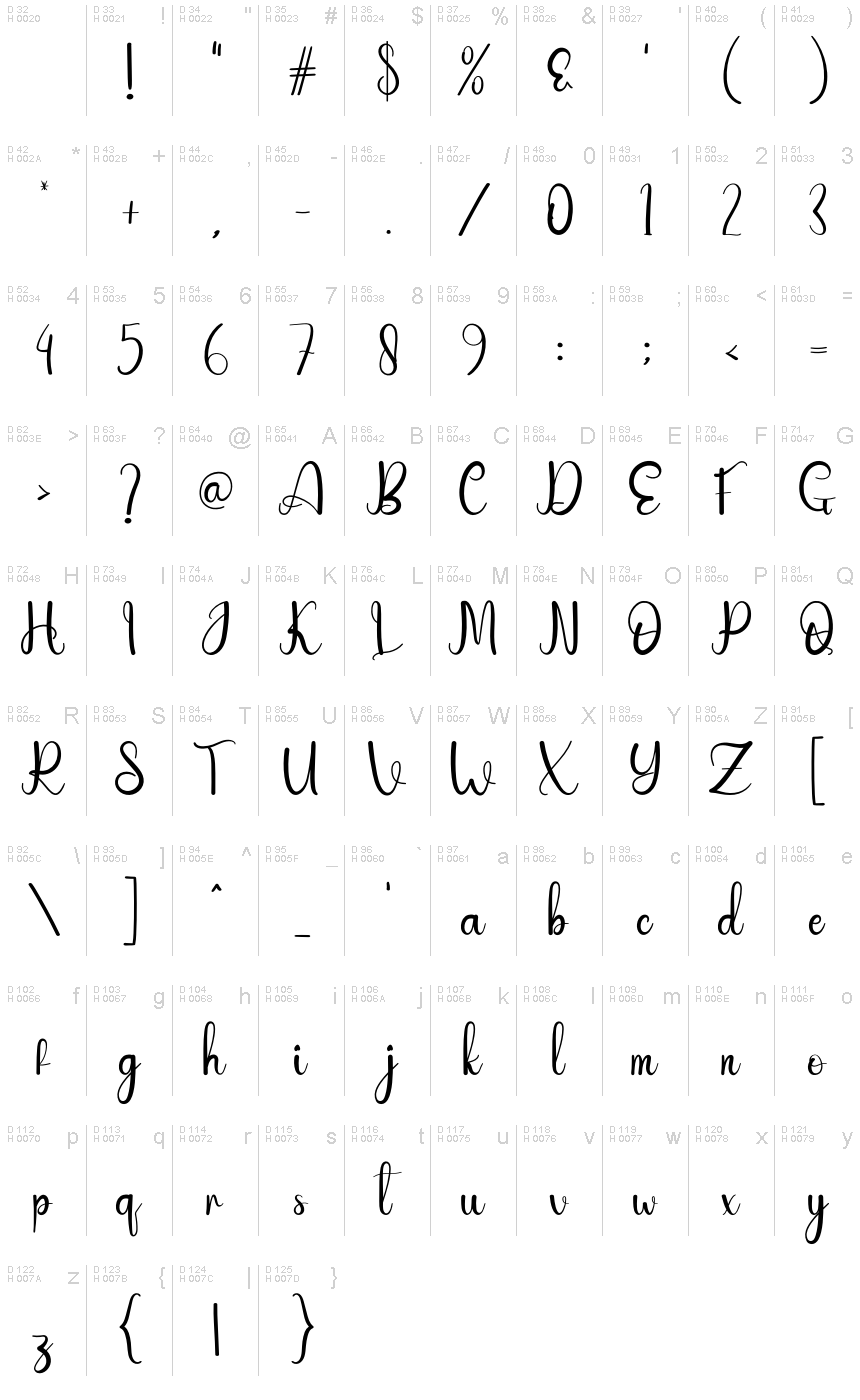
Airline
Airline is a captivating handwritten font designed by Andi Moz. Its whimsical, flowing strokes evoke a sense of effortless elegance, lending a touch of sophistication to any design. The varied line widths and organic curves create a striking visual rhythm, while the subtle variations in letter shapes add a charming, personal touch.
This versatile font shines in a wide range of applications, from modern editorial layouts to heartfelt stationery designs. Its distinctive style makes it an excellent choice for branding, packaging, and creative projects seeking to convey a sense of warmth and craftsmanship. Airline's versatility and visual appeal make it a valuable asset in the designer's toolkit.